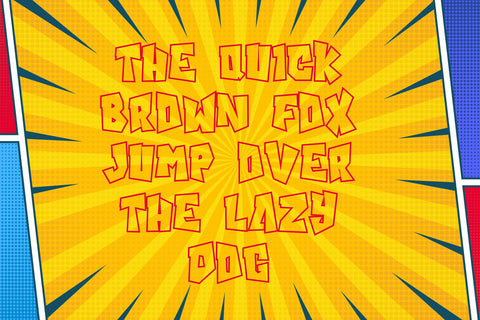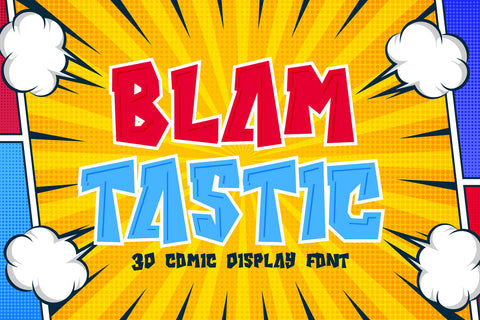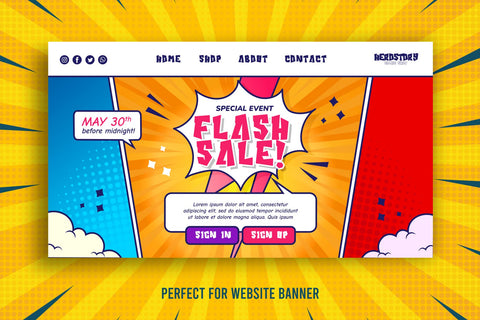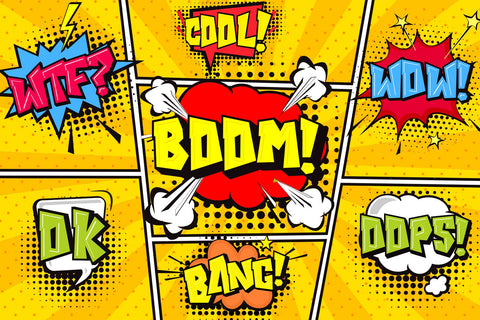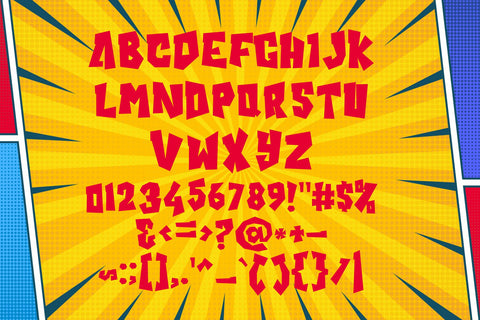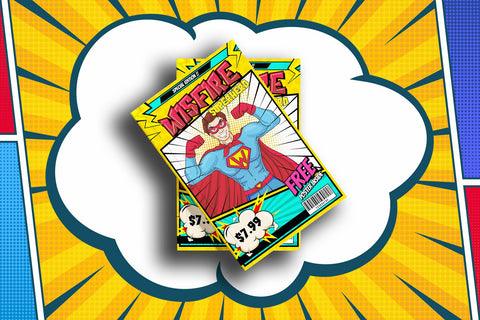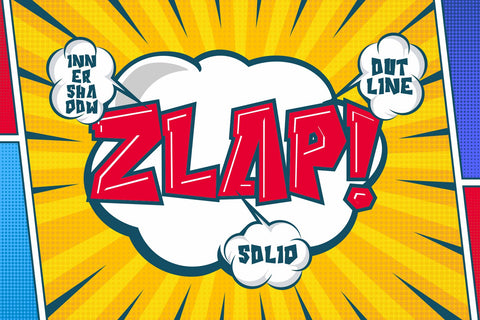
Blamtastic - 3d Comic Display Font
"Blamtastic" is a 3D display font designed with a comic theme and sharp characters. This font offers three distinct styles: solid, inner shadow, and outline. Fonts with multiple styles like this are ideal for creating depth and visual interest in text.
The solid style provides a bold and straightforward appearance, while the inner shadow style adds depth by giving the characters a three-dimensional effect. The outline style outlines the characters, emphasizing their shape against the background.
With its comic-inspired theme, sharp characters, and various styles, "Blamtastic" is suitable for a wide range of design projects that require a playful and attention-grabbing typographic style. It can be used effectively in comic books, posters, titles, or any design where a bold, dynamic, and multi-dimensional font is needed to create an impactful visual presence.